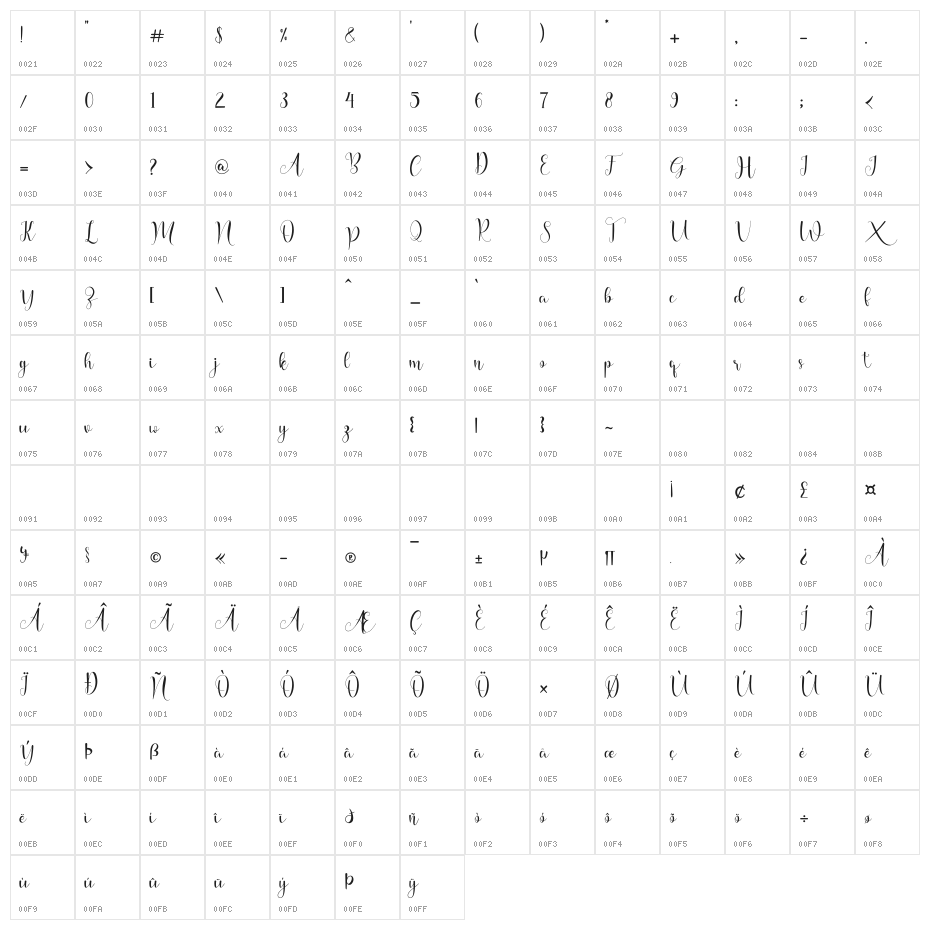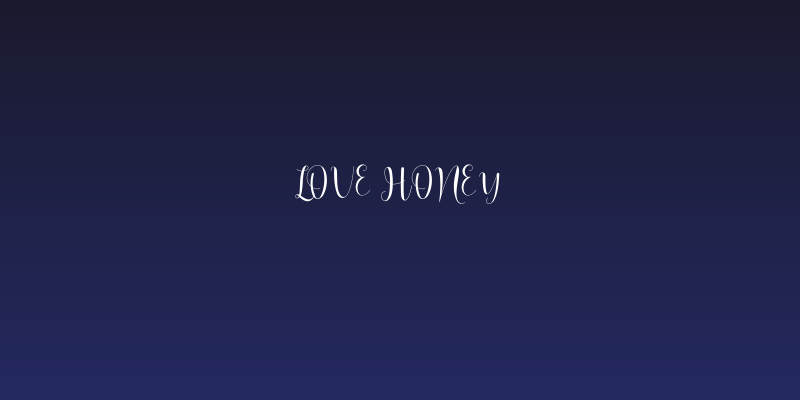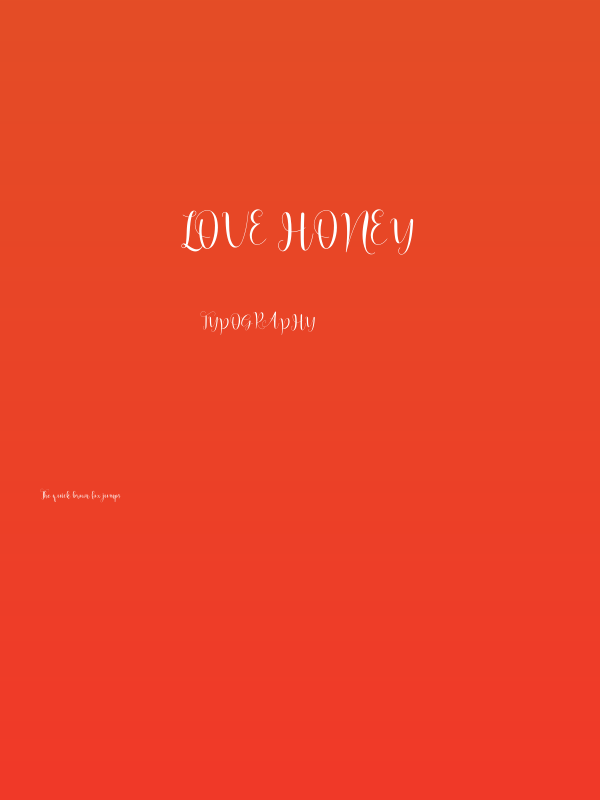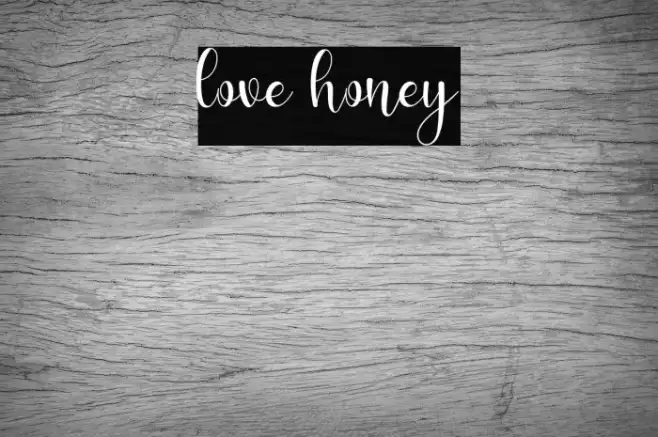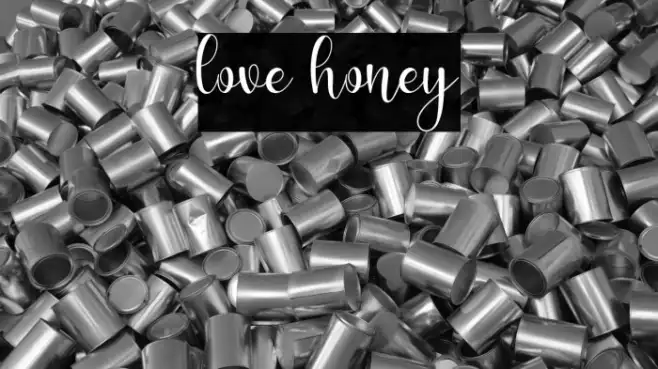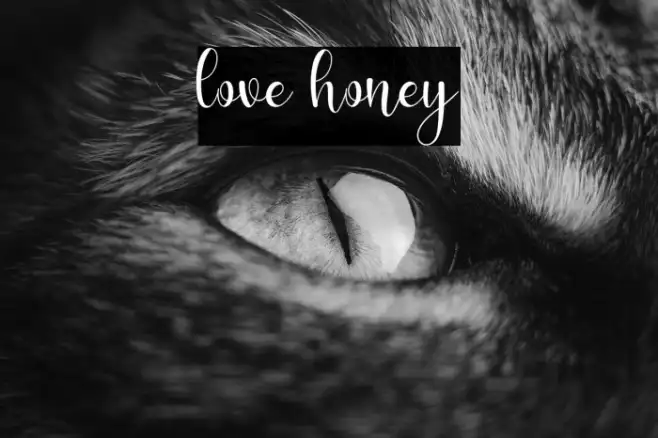
love honey Font
love honey Description
This font exudes elegance and sophistication with its flowing, cursive style. The uppercase letters are adorned with graceful loops and swirls, giving them a decorative flair. The lowercase letters maintain a consistent, smooth flow, enhancing readability while retaining a stylish appearance. The numerals are bold and slightly more structured, providing a nice contrast to the letters. Special characters are thoughtfully designed to match the overall aesthetic, making this font versatile for various uses. Its artistic nature makes it suitable for creative projects that require a touch of elegance and personality.
| Use Case | Logos, Invitations, Decorative Text |